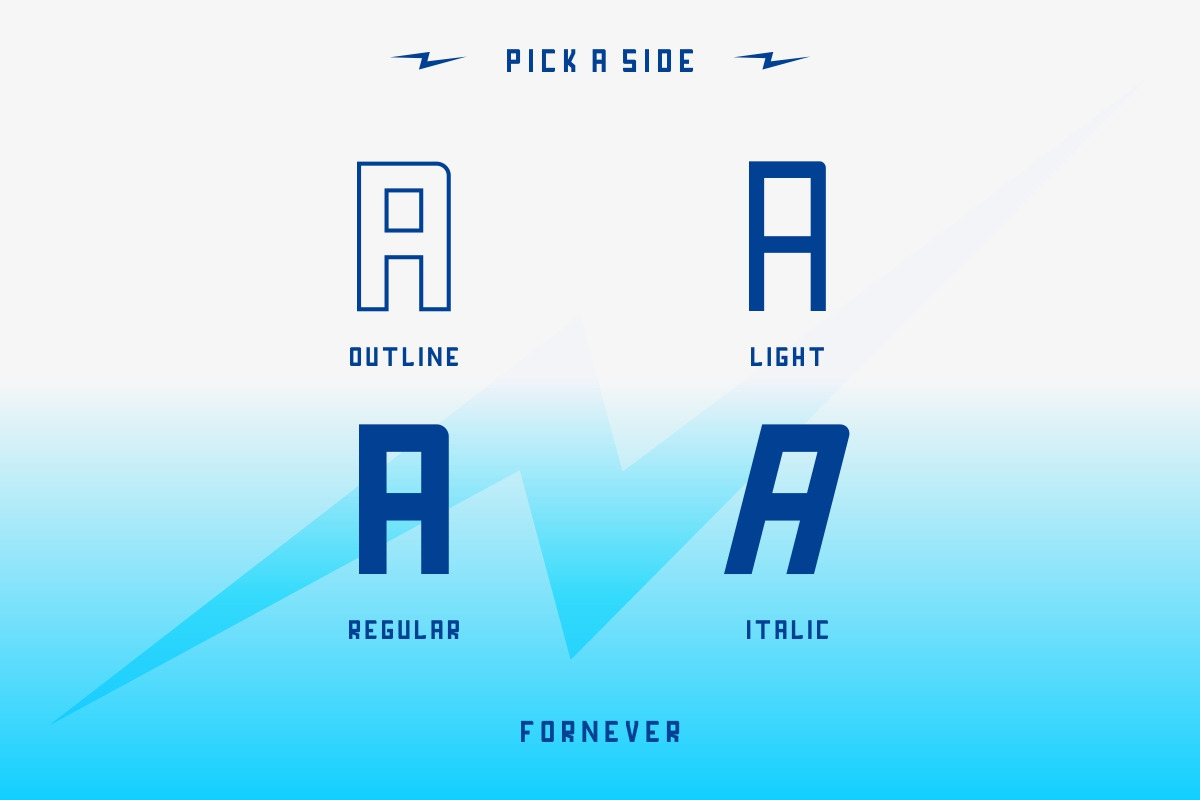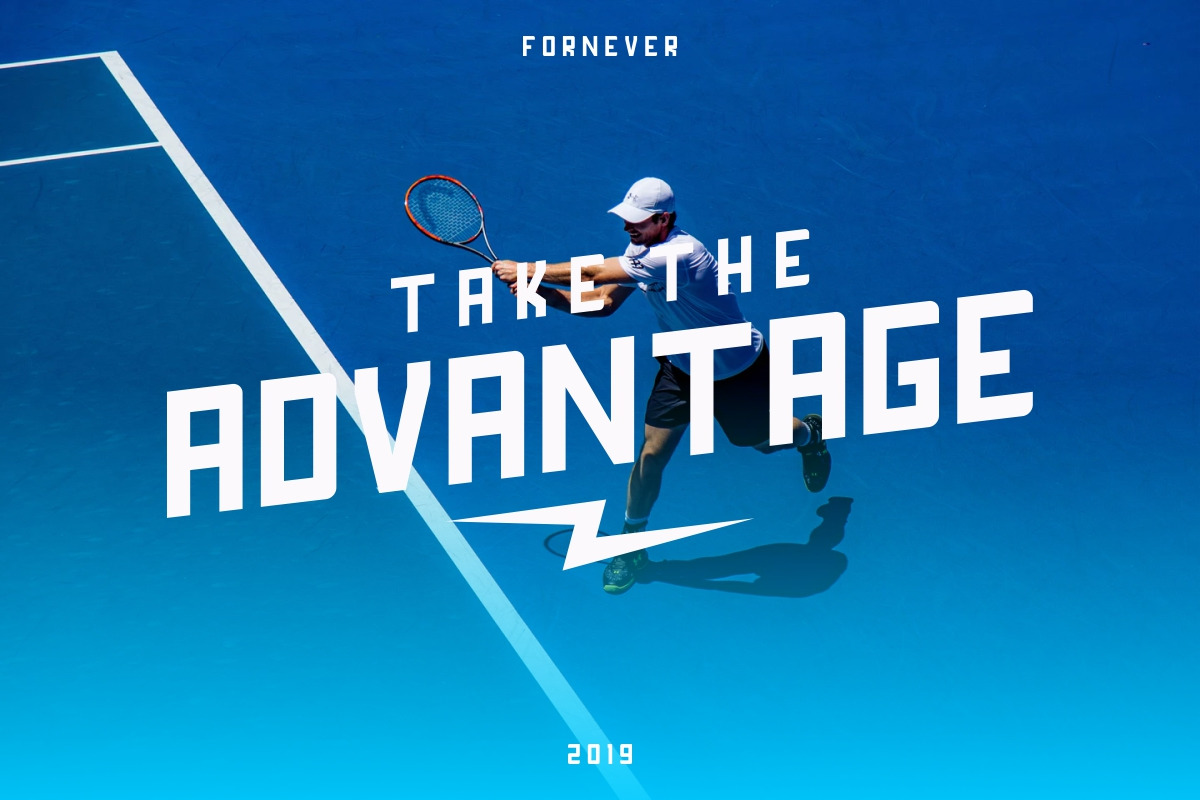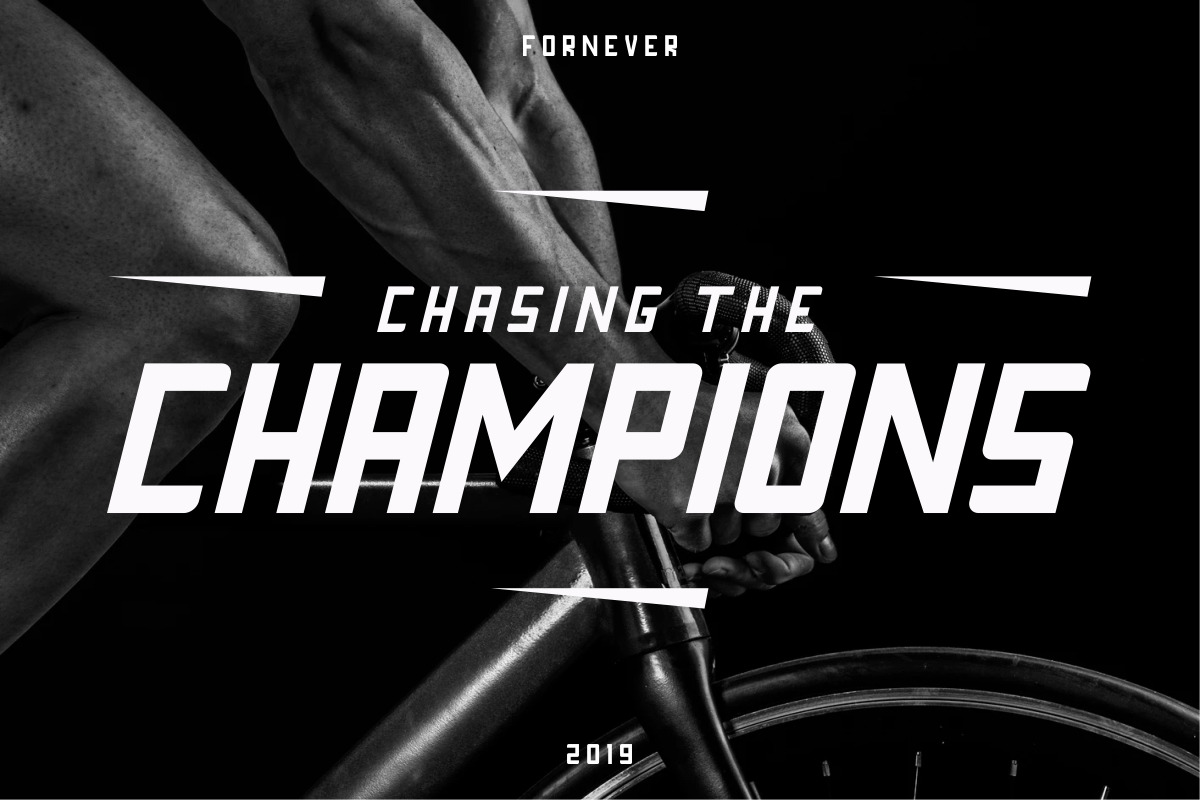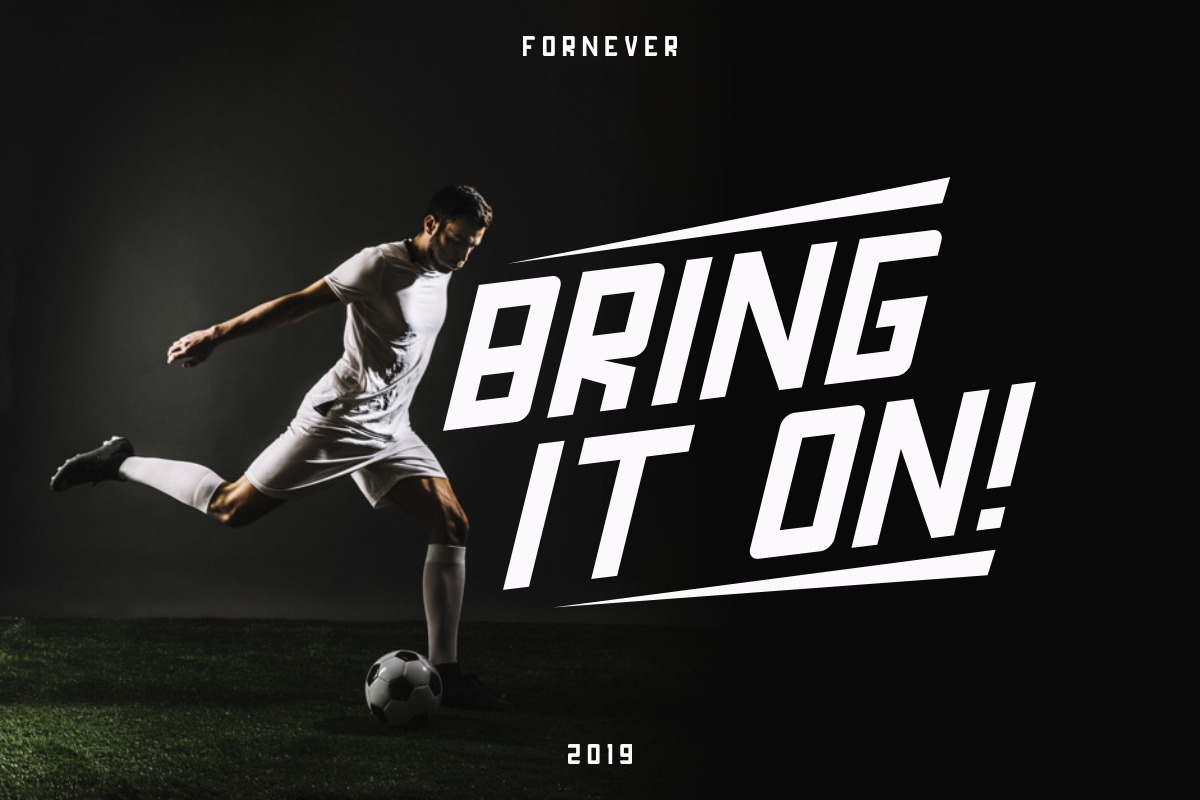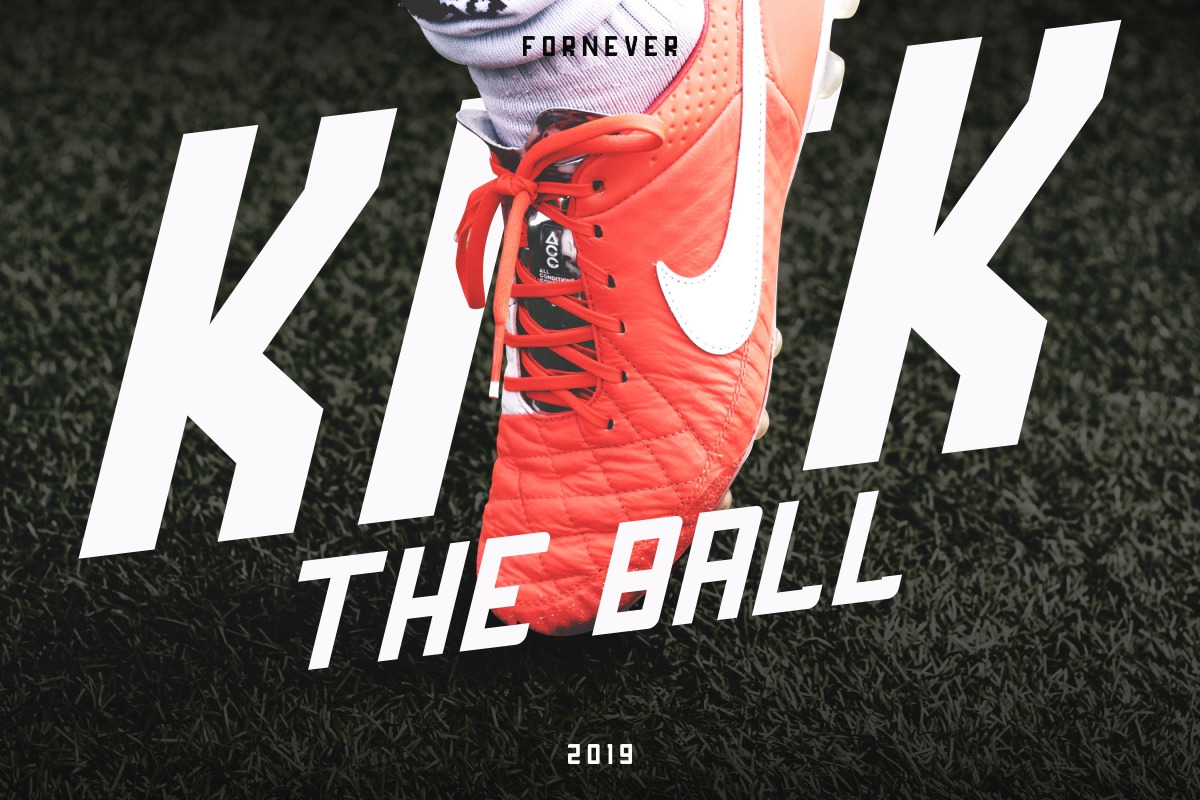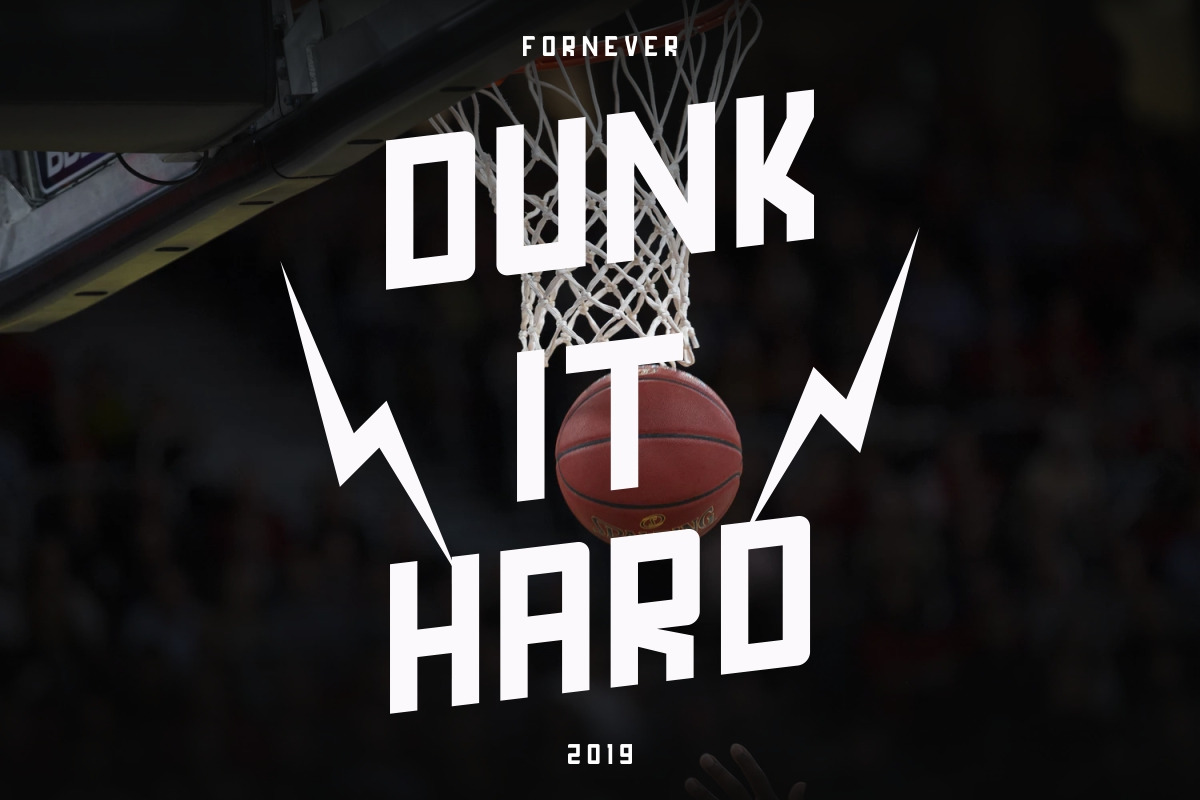
Fornever Sans Serif Font
Hi Everyone! Please meet our newest font : FORNEVER ! It comes with FOUR styles: Regular, Italic, Stroke and Light. It’s a sans serif font family. It is great for many cases: poster, logo, flyer, branding, signage, branding, brochure, billboard, music cover, magazine, side ads, neon-box, packaging, sports etc
This is a new modern sporty stylish sans display family font. It has a fresh, elegant, unique and stylish glyph.
There are many industries that is suitable for this font : sport, science, school, education, construction, real estate, services, law firm